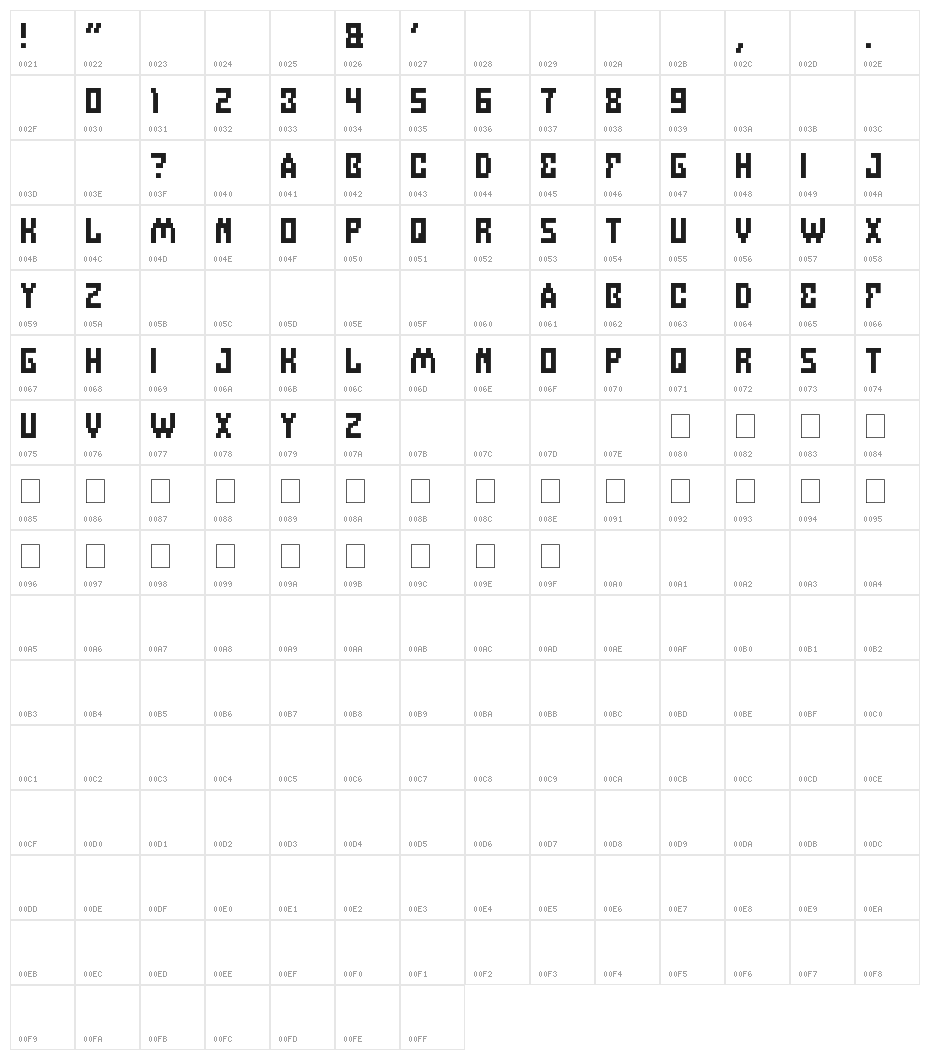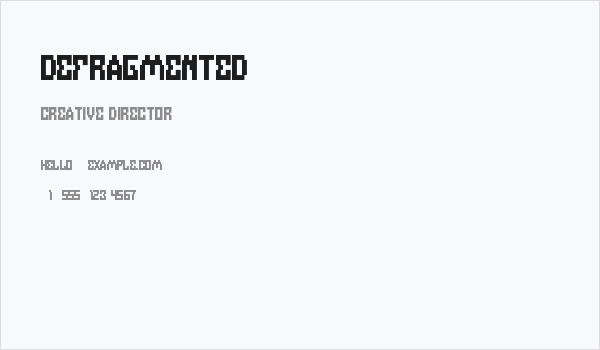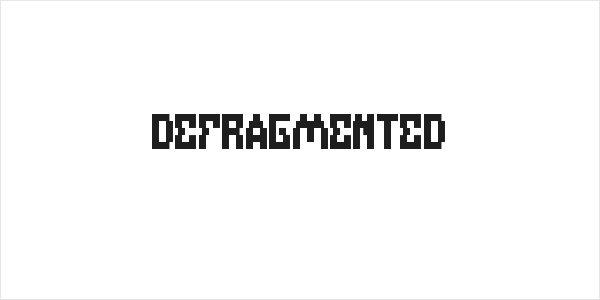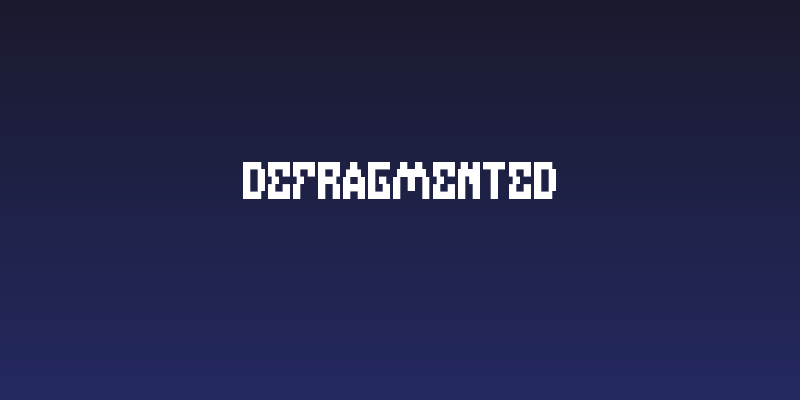
DEFRAGMENTED Font
DEFRAGMENTED Description
This font features a bold, geometric design with a pixelated, blocky appearance reminiscent of early digital or video game typography. The characters are uniformly structured with sharp angles and straight lines, creating a cohesive and striking visual impact. The uppercase and lowercase letters maintain a consistent height, enhancing the uniformity of the design. The numerals and special characters follow the same stylistic approach, ensuring a seamless integration across all text elements. This font's distinct style is ideal for projects that aim to evoke a sense of nostalgia or a retro digital aesthetic.
Overall StyleRetro, Digital
Proposed ProjectsIdeal for video game design, retro-themed posters, digital art projects, and tech-related branding.